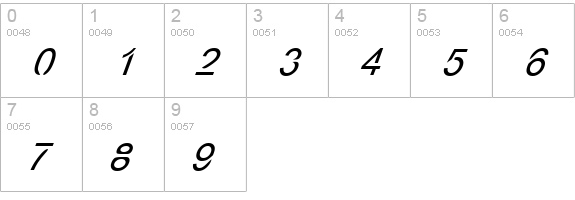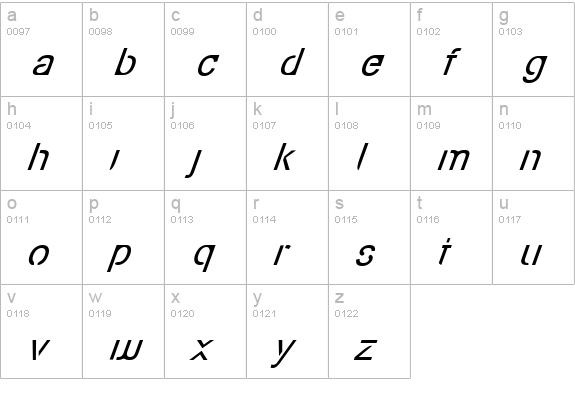
Eco-Files Italic is a distinctive, italic variant in the Eco typeface family \xE2\x80\x94 well suited to design and typography projects.
Eco-Files Italic font is a stylish and modern typeface that exudes a sense of sophistication and elegance. Its sleek design and slanted italics make it perfect for adding a touch of flair to any project. The Eco-Files Italic font is not only visually appealing but also environmentally friendly, as it has been created with sustainability in mind. This versatile font is ideal for a wide range of design projects, from branding and marketing materials to invitations and signage. Whether you are looking to create a professional business card or add a unique touch to your website, the Eco-Files Italic font is sure to impress. Best of all, the Eco-Files Italic font is freely available to download at FontsMarket.com. So go ahead and elevate your designs with this beautiful and eco-friendly font today!